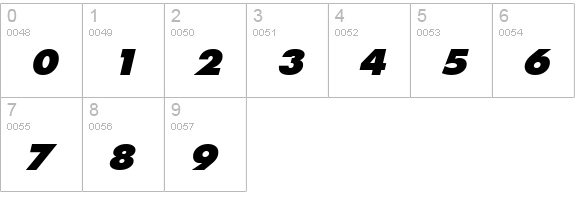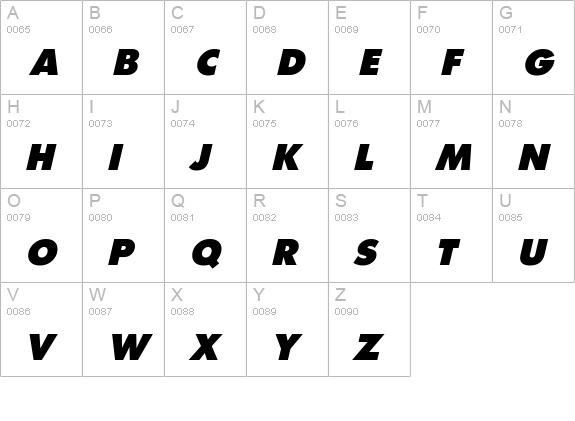
FuturistExtraHeavy Italic Font Details
FuturistExtraHeavy Italic is a distinctive, italic variant in the FuturistExtraHeavy typeface family \xE2\x80\x94 well suited to design and typography projects.
FuturistExtraHeavy Italic font is a bold and dynamic typeface that exudes a futuristic and modern aesthetic. With its sleek and edgy design, this font is perfect for making a bold statement in any design project. The exaggerated weight and slanted italics of FuturistExtraHeavy Italic add a sense of drama and impact, making it ideal for headlines, titles, and branding materials. What sets FuturistExtraHeavy Italic font apart is that it is freely available to download at FontsMarket.com. This means that you can easily access this striking typeface for your design needs without any cost. Whether you're working on a poster, website, or logo, FuturistExtraHeavy Italic font will bring a contemporary and eye-catching element to your projects. Elevate your designs with this powerful and dynamic font today!